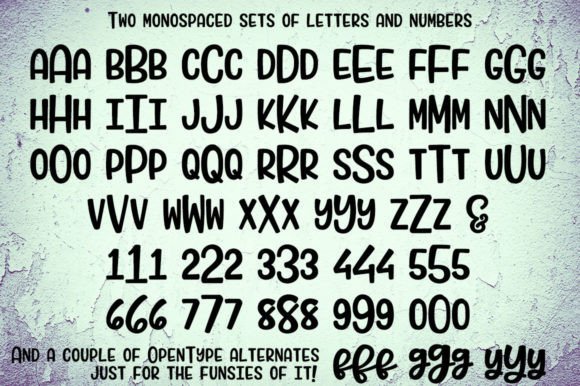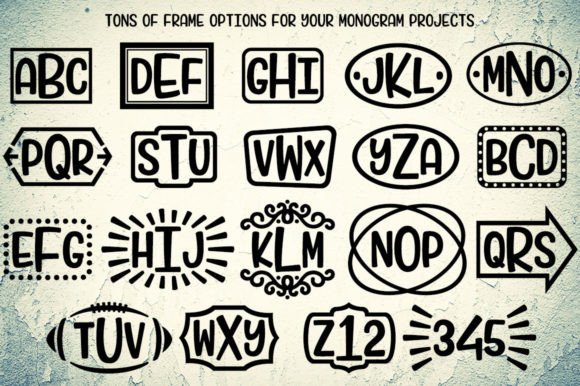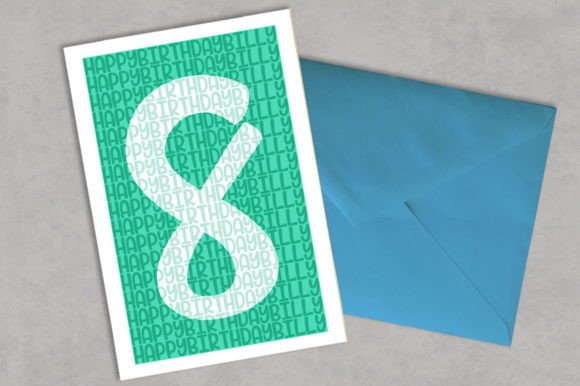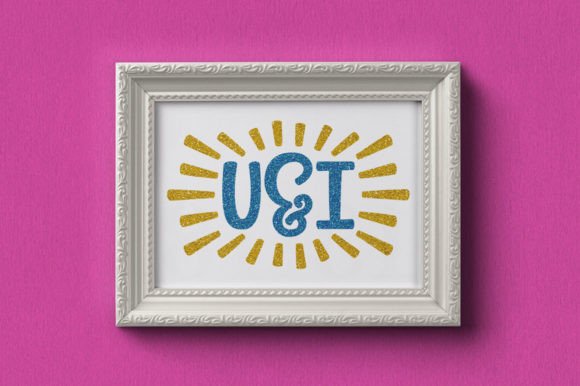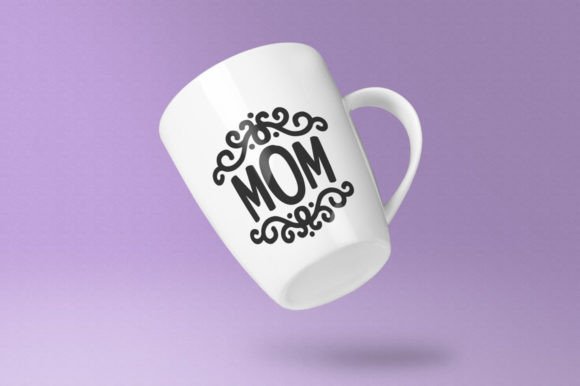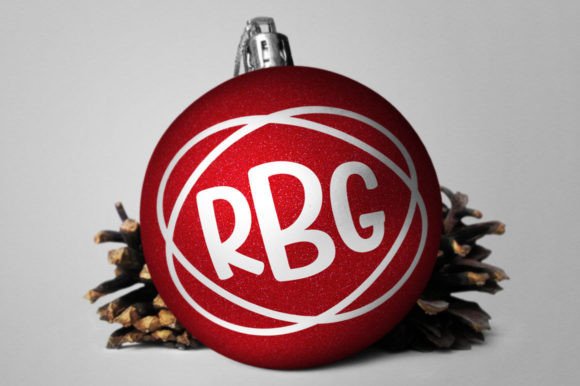
Candlepin Monogram Font: Adding a Touch of Whimsy to Your Designs
Monograms are a great way to add a personal touch to your designs, but sometimes they can come across as too formal or stuffy. That’s where the Candlepin Monogram Font comes in – a fun and light-hearted font that’s perfect for crafters and designers looking for a unique and playful way to create monograms.
The Story Behind Candlepin
As a designer, you know how important it is to have a font that reflects your personality and style. The creator of Candlepin Monogram Font wanted to create a font that was a little lighter-hearted and fun, and Candlepin was the result. With its unique and playful design, Candlepin is perfect for anyone looking to add a touch of whimsy to their designs.
What Makes Candlepin Special?
So, what makes Candlepin Monogram Font so special? For starters, the font file contains two sets of capital letters: larger (uppercase A-Z) and smaller (lowercase a-z), as well as two sets of numbers: larger (0-9) and smaller (shift + 0-9). But that’s not all – Candlepin also includes 20 frame and graphic options mapped to every single other piece of punctuation you can find on the keyboard!
Creating a Monogram with Candlepin
Creating a monogram with Candlepin is incredibly easy. Simply type the punctuation for the frame you want, followed by three letters in lowercase, uppercase, and lowercase. For example, typing [aBc will give you a cool and funky monogram that’s perfect for 1,001 household uses. And to make things even easier, the font comes with a PDF guide that includes a chart showing you every frame and graphic option, and which punctuation characters to type in to get them.
Candlepin as a Monospace Alphabet
But Candlepin is more than just a monogram font – it’s also two full usable monospace alphabets. Need your letters to stand out in a design? Candlepin has got you covered. With its clean and simple design, Candlepin can be used for a wide range of projects, from crafting and scrapbooking to graphic design and digital art.
Whether you’re a professional designer or a crafter looking for a unique way to personalize your projects, Candlepin Monogram Font is the perfect choice. With its playful and whimsical design, Candlepin is sure to add a touch of personality to any project. And with its ease of use and versatility, Candlepin is a font that’s sure to become a favorite in your design arsenal.
Key Features of Candlepin Monogram Font
- Two sets of capital letters: larger (uppercase A-Z) and smaller (lowercase a-z)
- Two sets of numbers: larger (0-9) and smaller (shift + 0-9)
- 20 frame and graphic options mapped to every single other piece of punctuation
- Easy to use: simply type the punctuation for the frame you want, followed by three letters in lowercase, uppercase, and lowercase
- Two full usable monospace alphabets
Get Creative with Candlepin!
So why settle for boring, generic monograms when you can create something truly unique and special with Candlepin Monogram Font? With its playful design and ease of use, Candlepin is the perfect choice for anyone looking to add a touch of whimsy to their designs. So why wait? Get creative with Candlepin today and see what amazing monograms and designs you can come up with!